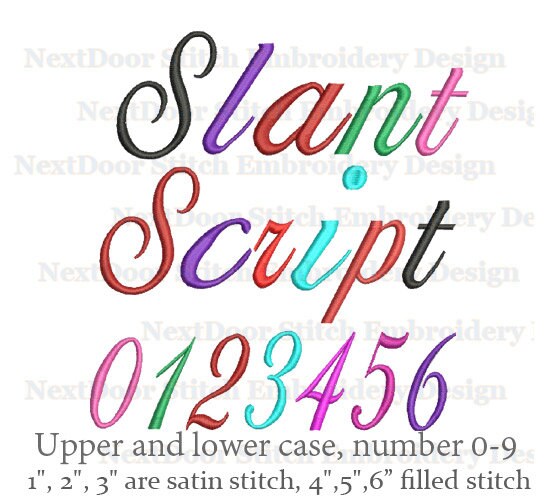
No Slant Script Font - Serenity Font Duo Slanted Script | Webfont & Desktop font ... : Noermala script slant font 2.95/5.. This font is in the regular style. This font belongs to the futuristic category. All of the uppercase leans right while the lowercase leans left. Hi, i'm trying to figure out how to slant a font item. If you want to create professional printout, you should consider a commercial font.
All of the uppercase leans right while the lowercase leans left. Hi, i'm trying to figure out how to slant a font item. Google fonts now supports variable fonts. I love using script fonts in my designs and i'm always on the hunt for the best free ones out there. One is formal script writing, which is very demo_coneriascript_slanted demo_coneriascript dobkinscript dolliescript_personaluse dreamer esplanadescript_personaluse.
@gue3bara recently updated the upstream repository for the the typeface cairo with a bidirectional slant axis. Noermala script slant font 2.95/5. If you want to create professional printout, you should consider a commercial font. Halo, buat agency, designer, youtuber, atau siapa saja yang ingin menggunakan font ini untuk kebutuhan komersil seperti poster filem, pamflet promo, logo perusahaan, kaos, dan sejenisnya. Download slant font with regular style. Generally, there are two styles of script writing. Sign up and start building your font collection. Script fonts are created based on the varied and fluid stroke in handwriting.
Download marthin slant script regular font | 1 style free font. Sign up and start building your font collection. Spectacular bundle (20 fonts + bonus). Charlion script 2 style is a hand lettering typeface, with authentic clean and bold imperfections, and a very bouncy baseline it has a perfectly paired complimentary marker font , and a super handy set of bonus swash. The charlion slant script font has been downloaded 5,620 times.
Sign up and start building your font collection. A slanted and edgy typeface best used for display graphics. Free fonts often have not all characters and signs, and have no kerning pairs (avenue ↔ a venue, tea ↔ t ea). This font was posted on 08 may 2015 and is called slant font. Script fonts are created based on the varied and fluid stroke in handwriting. 214 matching requests on the forum. I mostly use them for wedding and invitation cards but they also look great on typography posters sandwiched between bold straight fonts and on logo's… I thought it might be unusual but i w.
I thought it might be unusual but i w.
214 matching requests on the forum. This font is in the regular style. Google fonts now supports variable fonts. Votes, rated based on results identification. You can find 332 fonts like this. Download free fonts for mac, windows and linux. Generally, there are two styles of script writing. Andrea's handwriting ii includes 16 fonts. The slant font contains 115 beautifully designed characters. Free fonts often have not all characters and signs, and have no kerning pairs (avenue ↔ a venue, tea ↔ t ea). @gue3bara recently updated the upstream repository for the the typeface cairo with a bidirectional slant axis. Script fonts are created based on the varied and fluid stroke in handwriting. Hi, i'm trying to figure out how to slant a font item.